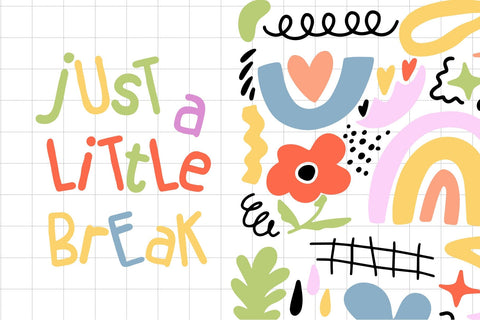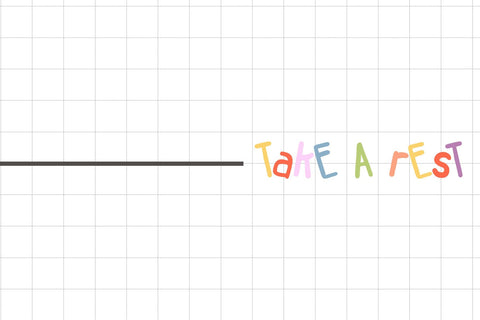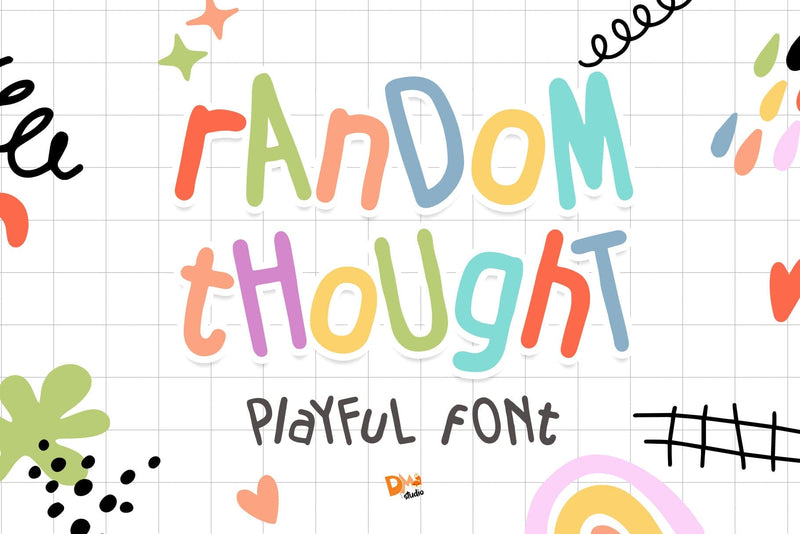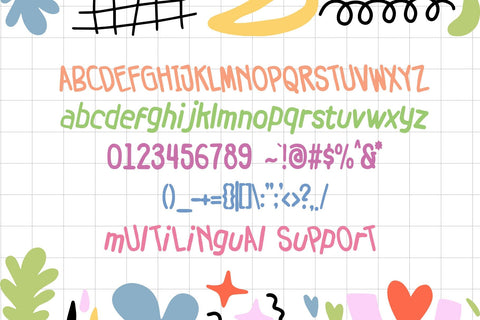
Random Thought Font
Random Thought Font is a dynamic and versatile typeface designed to capture the essence of spontaneity and creativity. With its quirky letterforms and expressive style, this font adds a touch of whimsy and character to your designs. Whether you're crafting logos, posters, or social media graphics, let the Random Thought Font infuse your projects with creativity and personality.
- Dynamic and Expressive Design: The Random Thought Font features quirky letterforms and an expressive style that adds spontaneity and character to your text.
- Versatility in Application: Perfect for a wide range of design projects, including logos, posters, social media graphics, and more, allowing you to infuse creativity into every aspect of your work.
- Uppercase and Lowercase Letters: Provides both uppercase and lowercase letters for creative flexibility in your designs.
- Ligatures and Special Characters: Includes ligatures and special characters to enhance the visual interest and uniqueness of your typography.
- Punctuation and Symbols: Comprehensive set of punctuation marks, numerals, and symbols for versatile use in your designs.